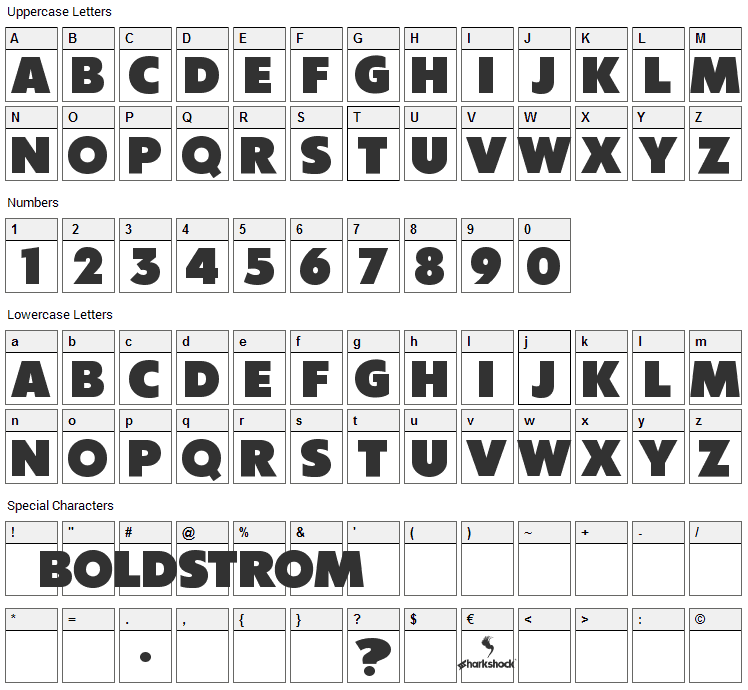
Boldstrom Font
Boldstrom is a heavy-handed, all caps, display font available in 5 versions. Emphasis was put into strong line weight, minimal contrast, and tight curves. This family is defined by very broad stems with comparatively thinner cross strokes. Spacing was condensed to ensure the characters fit snug against one another. This was done in part to minimize negative space while also creating tension. The result is a powerful looking sans serif designed to command attention and make a statement. Boldstrom will be best used in large format print, titling, books, movie posters, or company logos.
The Boldstrom family is equipped with Basic Latin, extended Latin, diacritics, Cyrillic, Greek, support for Polish, symbols, punctuation, and kerning. The demo contains basic Latin and limited punctuation only. Please check the glyph map for all supported characters.
• Designer:Sharkshock